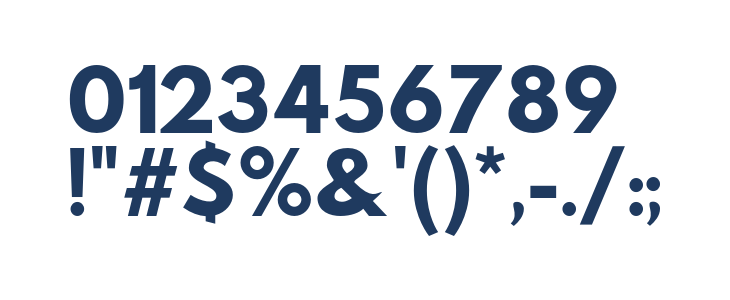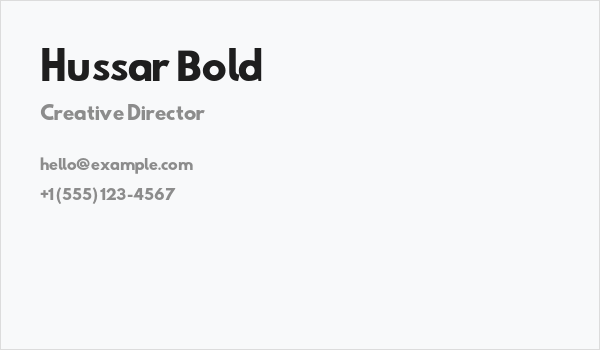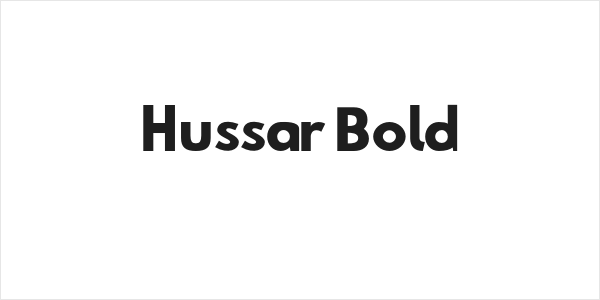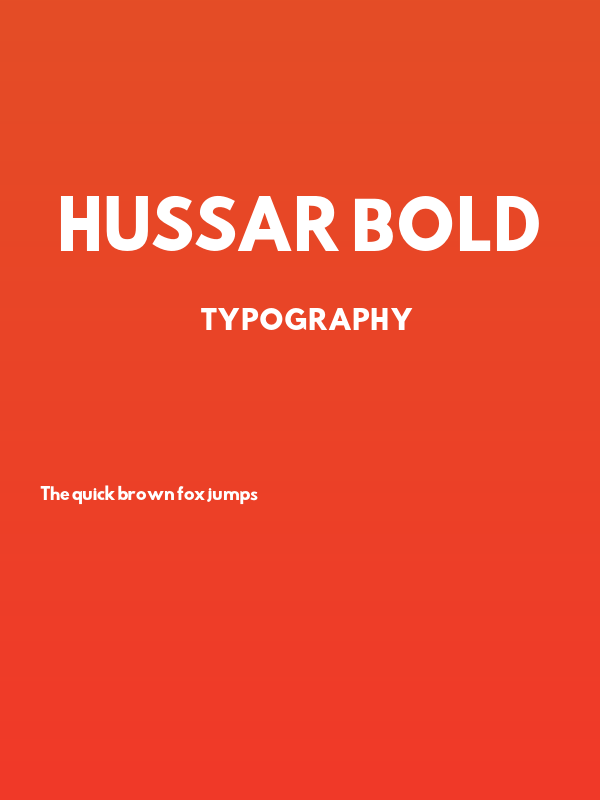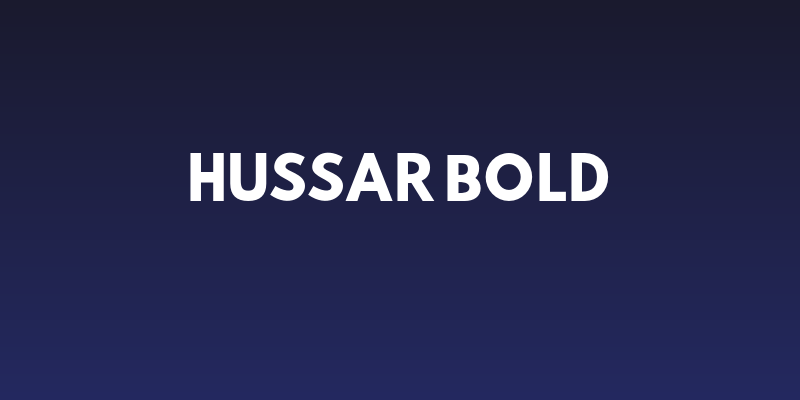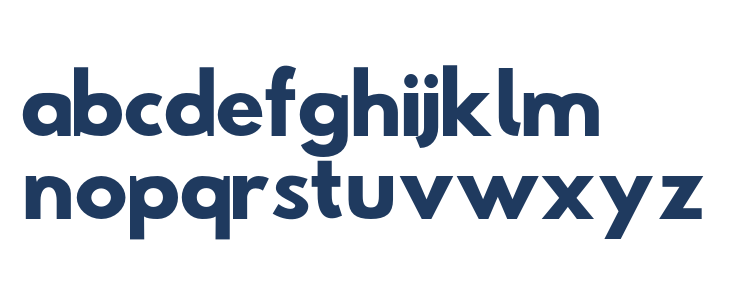
Hussar Bold Font
Hussar Bold Description
This font features bold, geometric letterforms with a strong presence. The uppercase letters are uniform in height, creating a cohesive and balanced look. The lowercase letters maintain a similar geometric style, with rounded edges that add a touch of softness to the overall boldness. The numerals are consistent with the letterforms, offering a clear and legible appearance. Special characters are well-integrated, maintaining the font's bold and modern aesthetic. The font's design is clean and impactful, making it suitable for a variety of applications where a strong visual statement is desired.